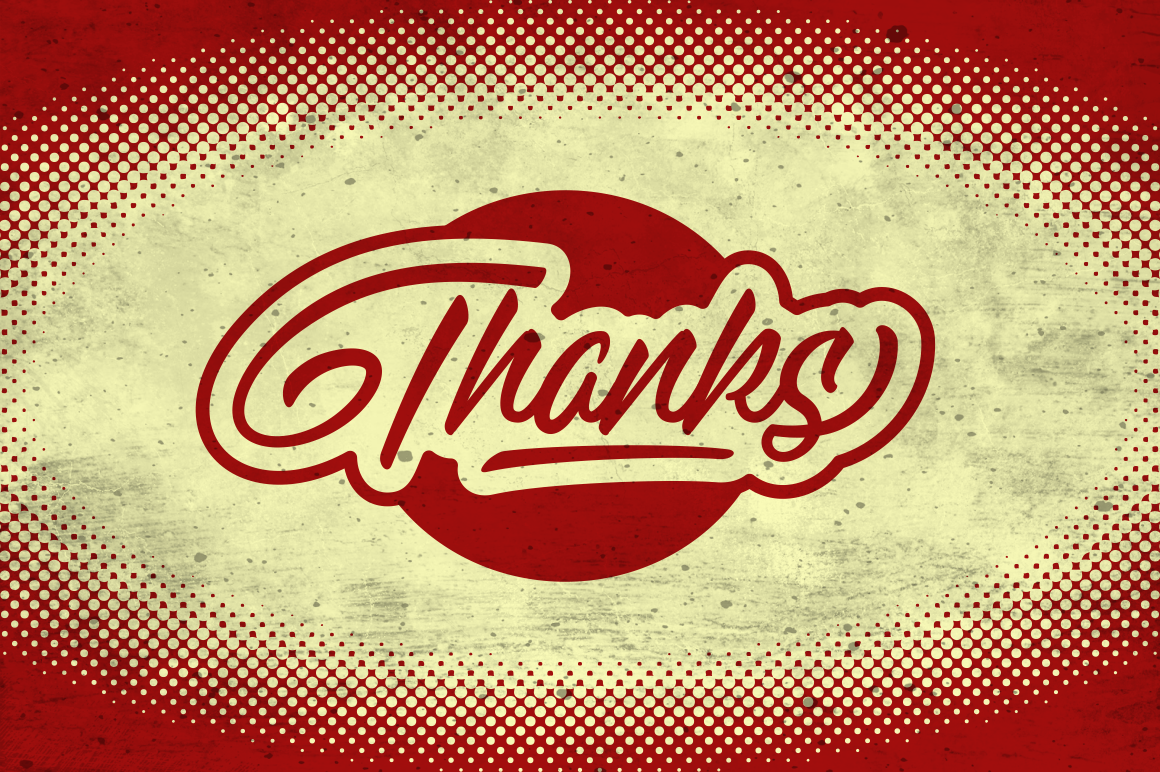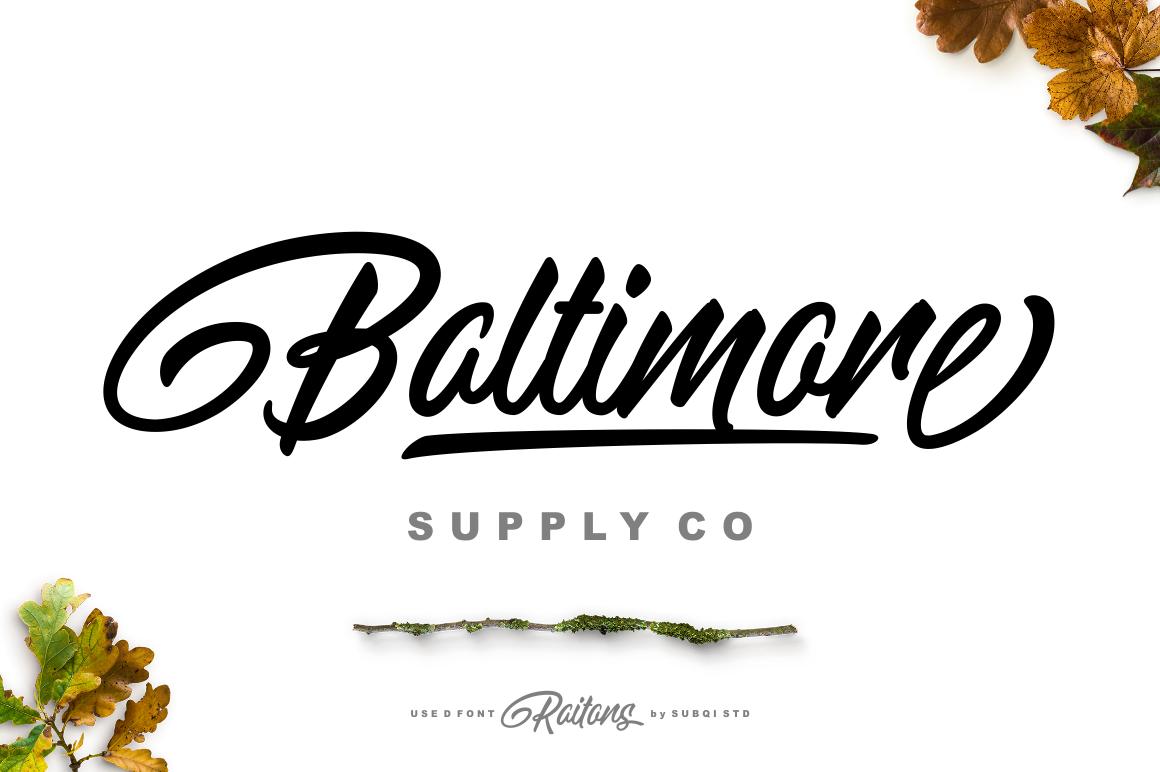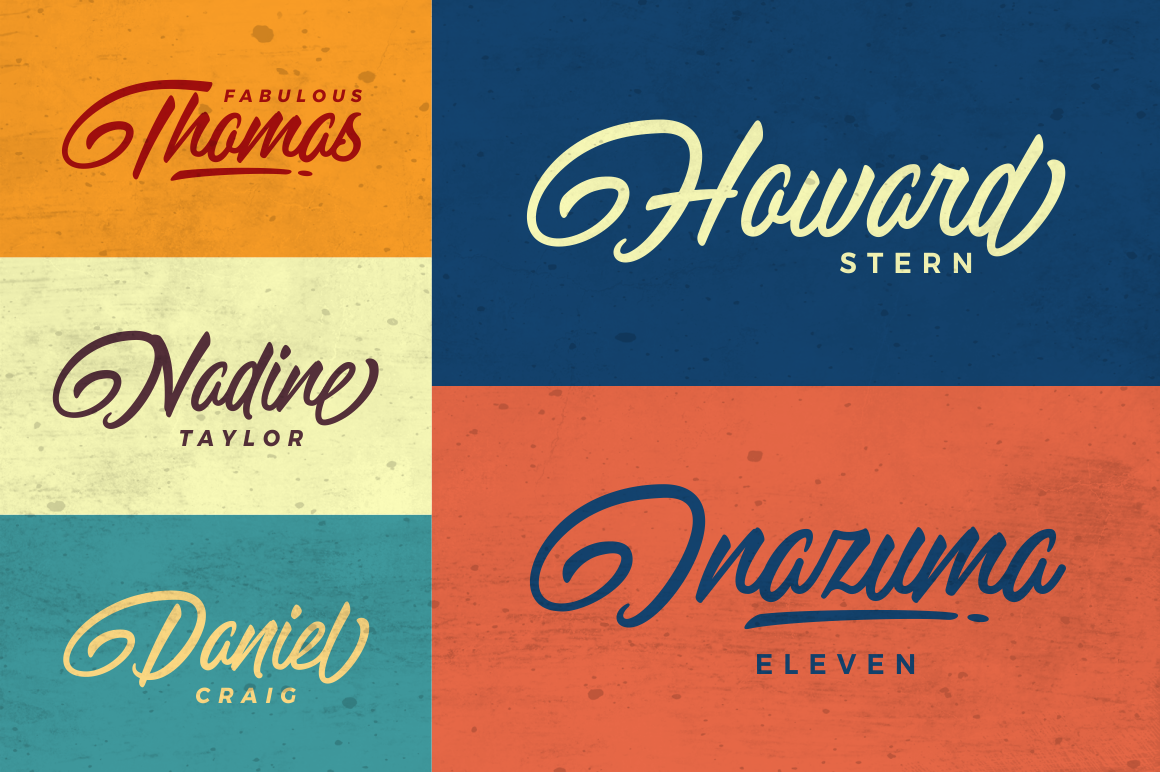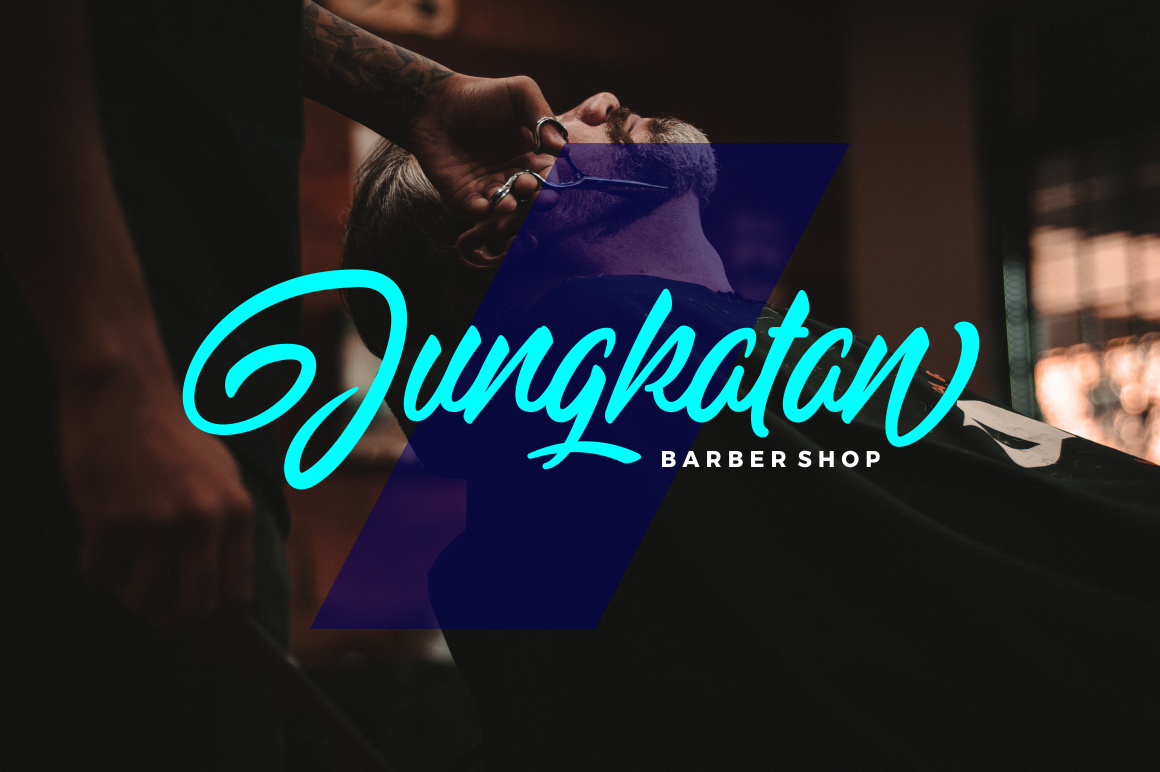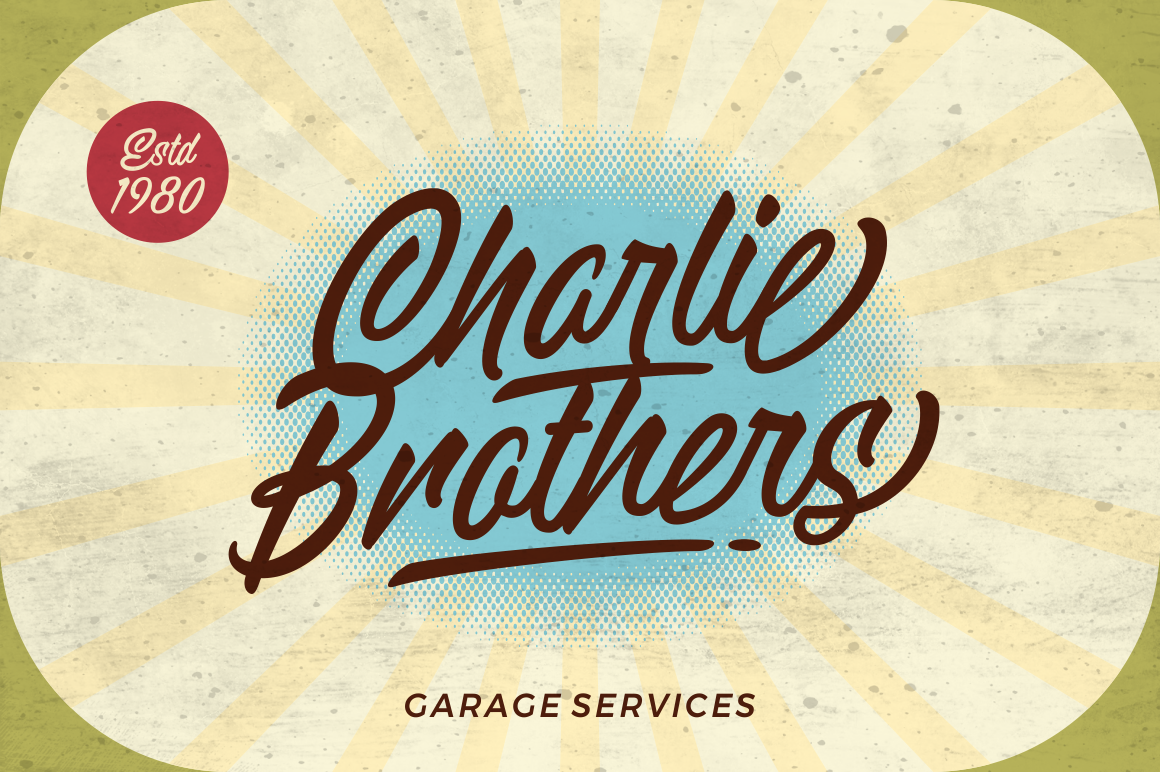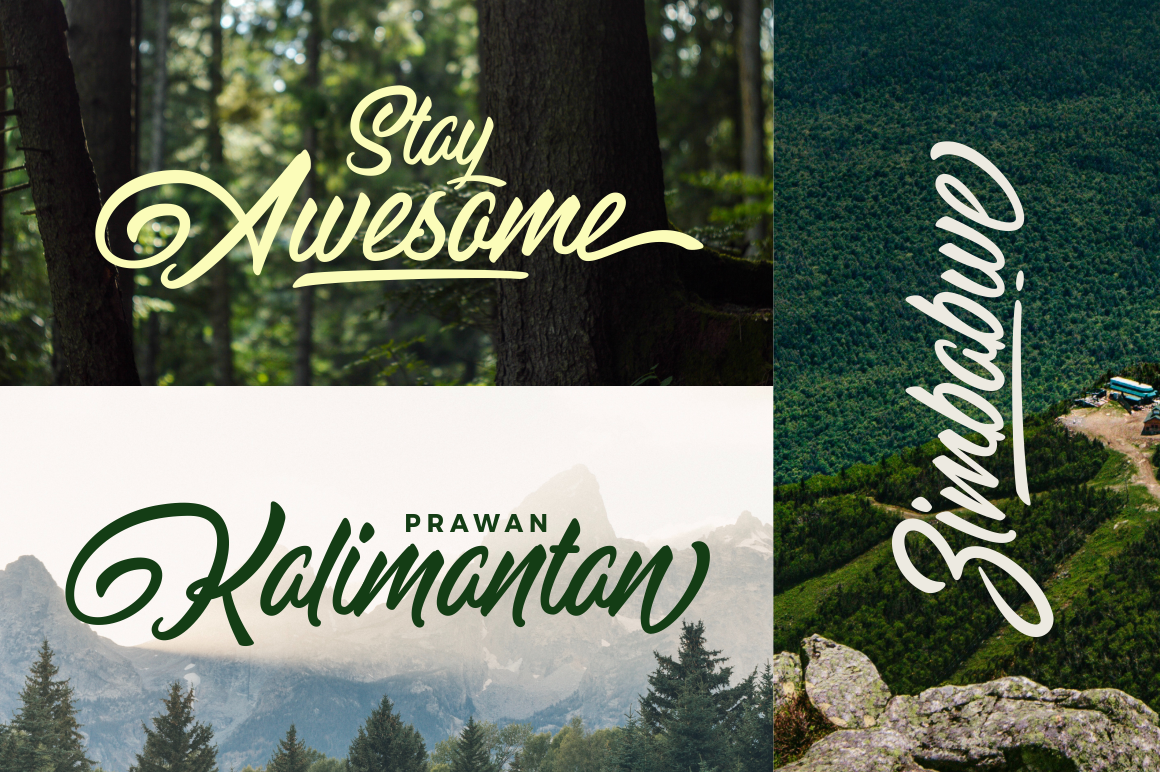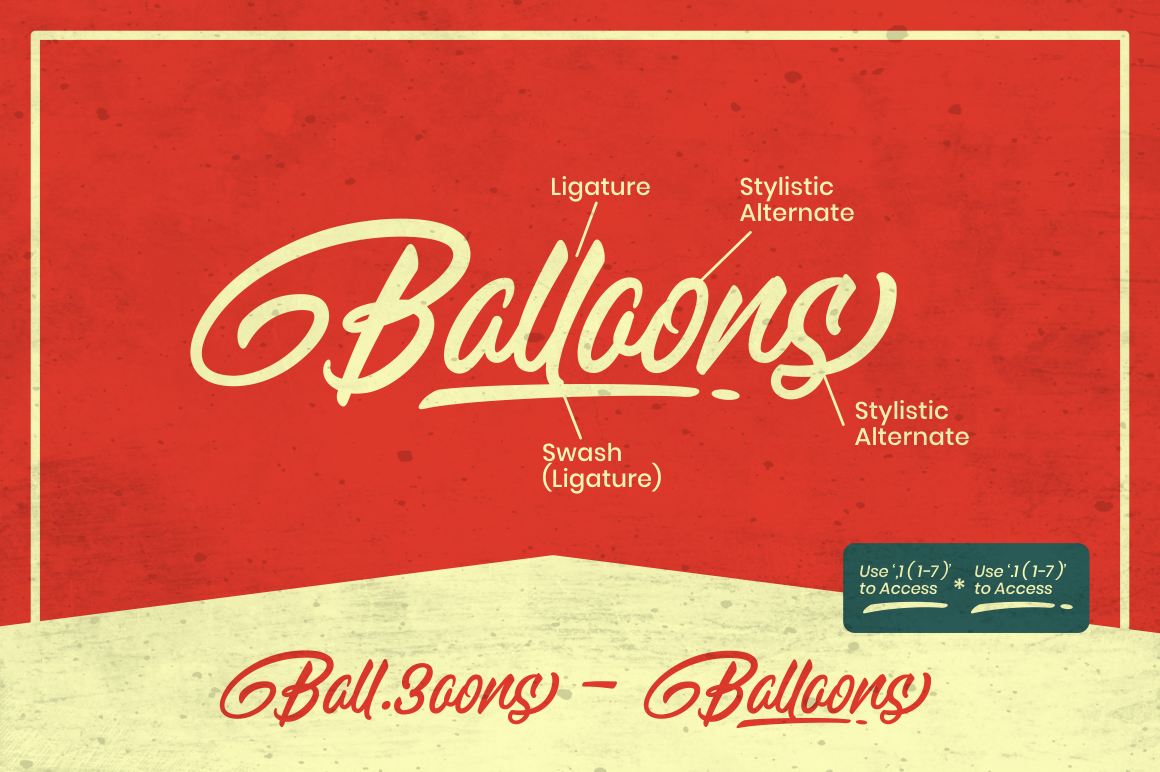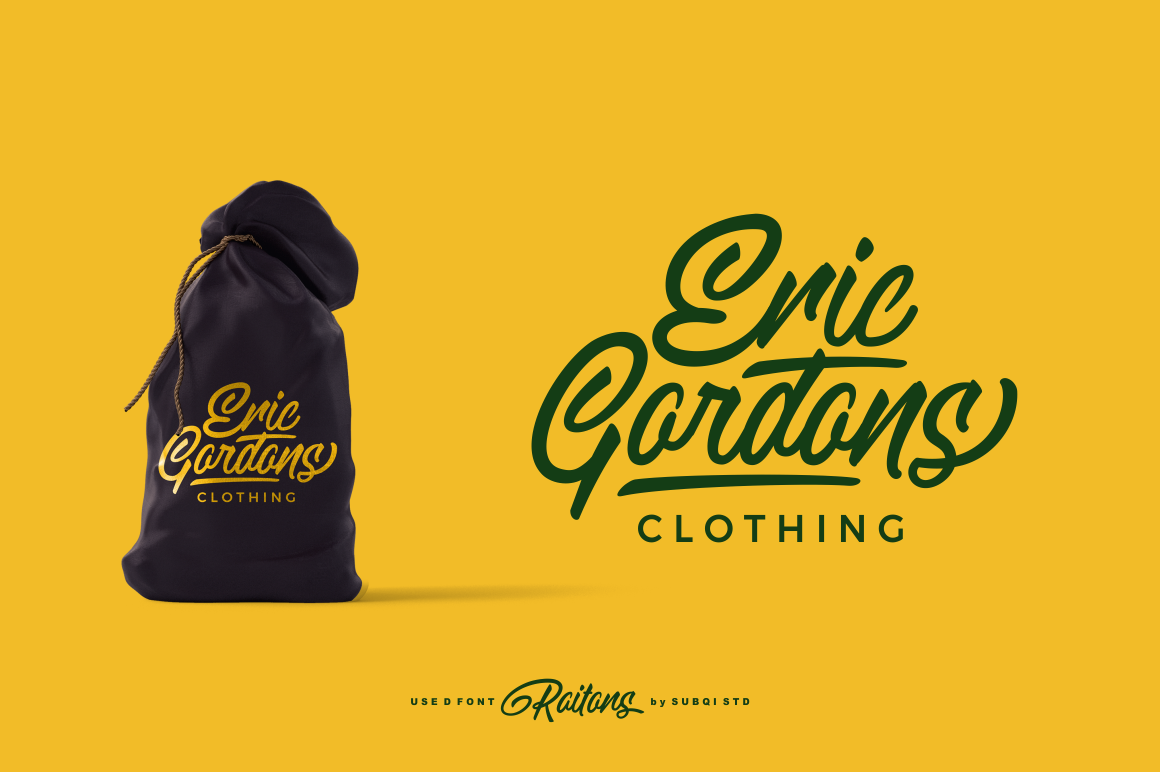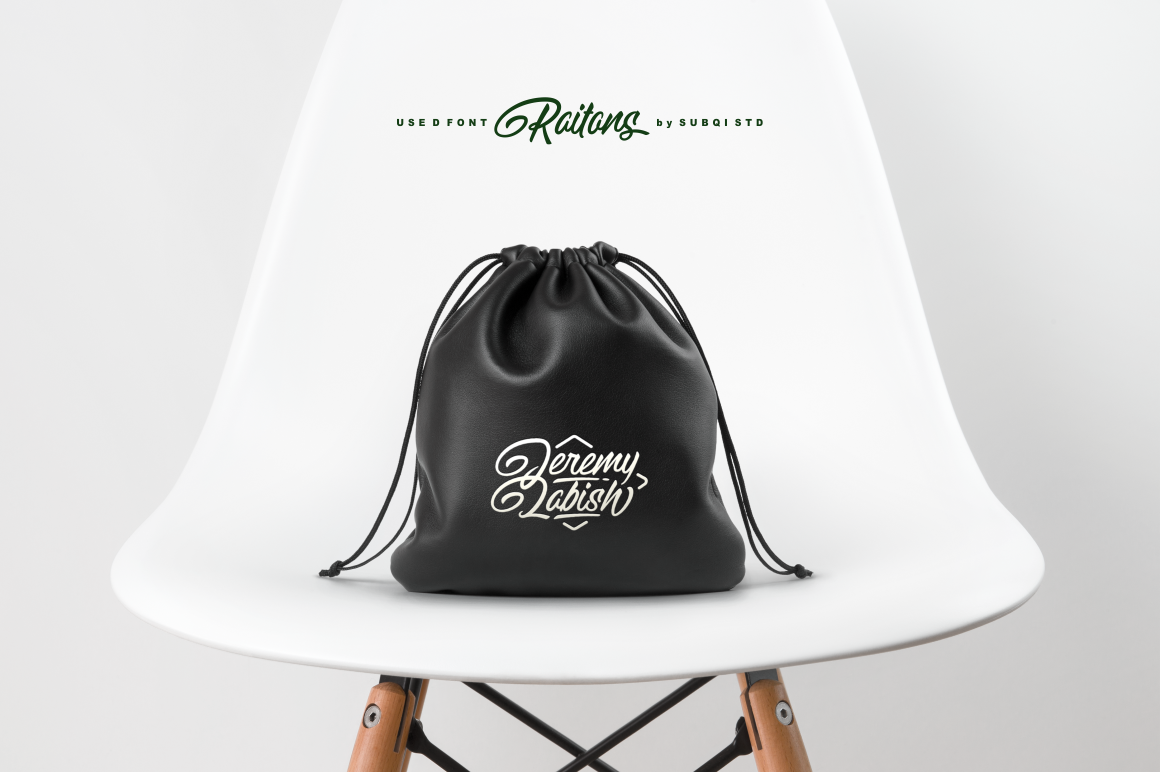
Raitons Font
About Raitons Font
Raitons, a display script that can be used for many different projects. It works well for ultra-modern but also classical vintage design styles.